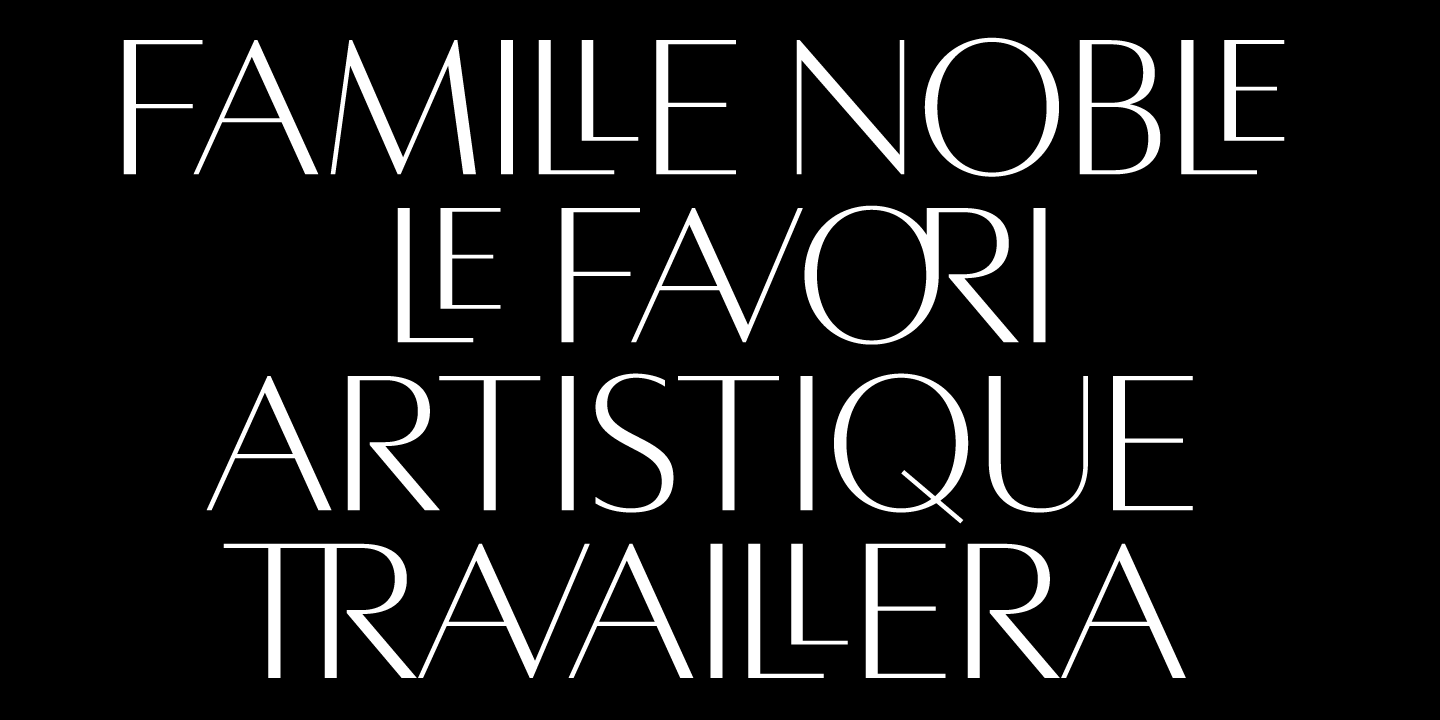
This classical typeface excels in prestigious publishing houses, academic journal titles, historical document recreation, museum exhibition headers, luxury book covers, classical music programs, architectural firm presentations, and distinguished editorial communications. Its imperial elegance makes it perfect for projects requiring timeless authority and scholarly sophistication.
Averes Title Roman Font generates excitement through its imperial grandeur that captures the enduring power of classical Roman typography and scholarly excellence. The font's stately proportions and authoritative letterforms create an atmosphere of intellectual prestige that resonates with audiences seeking educational depth and historical authenticity. Its meticulously carved character variations deliver monumental readability while maintaining distinctive classical personality that reflects the eternal wisdom of ancient civilizations and the lasting impact of Roman design principles.
The Averes Title Roman Font family includes multiple classical variations such as regular, light, bold, condensed, and inscriptional styles. Each family member maintains the distinctive Roman aesthetic while offering different levels of imperial sophistication for various scholarly applications. This prestigious collection empowers designers to create authoritative compositions that celebrate the full spectrum of classical learning from intimate academic discussions to grand ceremonial proclamations.